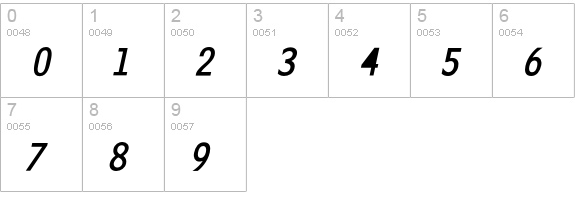
Clique-SerifBoldOblique Font Details
Clique-SerifBoldOblique font is a bold and modern typeface that exudes confidence and professionalism. Its sleek design and sharp edges make it perfect for titles, headings, and attention-grabbing text. The bold oblique style adds a touch of flair and sophistication to any design project. And the best part? Clique-SerifBoldOblique font is available for free download at FontsMarket.com. This means you can easily add this stylish font to your collection without breaking the bank. Whether you're working on a branding project, poster design, or website layout, Clique-SerifBoldOblique font will make your text stand out and leave a lasting impression. Download it today and elevate your designs with this versatile and eye-catching typeface.